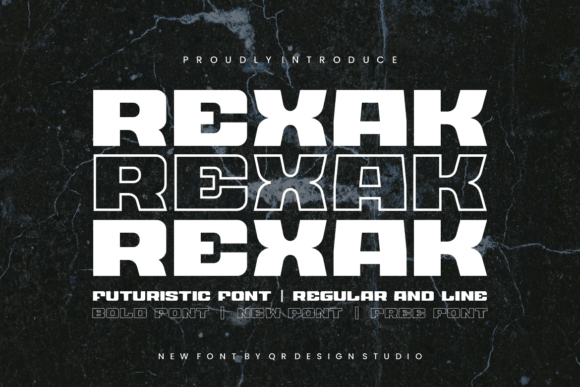
In a universe of mundane fonts, Rexak Font emerges as a radiant beacon of individuality, a bold and captivating display font that will leave you spellbound. Its sans serif design exudes confidence and modernity, making it the perfect font for those seeking to make a lasting impression.
Whether you're a creative professional crafting eye-catching designs, a passionate digital artist seeking to infuse your creations with a unique flair, or a dedicated educator preparing impactful presentations, Rexak Font is your ultimate companion. Its versatility extends beyond the digital realm, seamlessly adapting to the tactile world of crafting and the heartfelt expressions of greeting cards.
Rexak Font's all-caps structure radiates an aura of authority and boldness, commanding attention and leaving an indelible mark. Its clean and legible lines ensure that your message is conveyed with clarity and impact, while its stylish curves add a touch of sophistication and elegance.
With Rexak Font, you'll discover a font that effortlessly blends functionality and aesthetics, empowering you to create designs that captivate and inspire. Its versatility knows no bounds, effortlessly adapting to a myriad of creative projects and industries.
Step into the realm of creative possibilities with Rexak Font and unlock your true potential. Dive into a world where your designs take flight, where your presentations ignite minds, and where your crafting projects become masterpieces.
Rexak Font: The Perfect Font For Recommendation Letters
In the realm of professional communication, first impressions matter. When crafting recommendation letters that hold the power to shape an individual's future, choosing the right font is paramount. Rexak Font stands as the ultimate choice, its bold presence conveying confidence and credibility.
With Rexak Font, your recommendation letters will radiate professionalism and leave a lasting impression on hiring managers and admissions officers alike. Its clear and legible structure ensures that your words are easily read and understood, while its distinctive style adds a touch of sophistication and gravitas to your message.
Rexak Font's versatility extends to digital and print formats, making it the perfect font for both online and offline applications. Whether you're composing a formal recommendation letter for a job application or a heartfelt letter of support for a scholarship, Rexak Font will elevate your words and convey your message with impact.
Embrace Excellence with Rexak Font
Rexak Font is not just a font; it's an investment in your creative journey. Its versatility and captivating style will empower you to create stunning designs, compelling presentations, and heartfelt expressions that leave a lasting impression.
Join the ranks of creative professionals, educators, and design enthusiasts who have discovered the transformative power of Rexak Font. Unlock your creativity and take your designs to new heights with this extraordinary font.